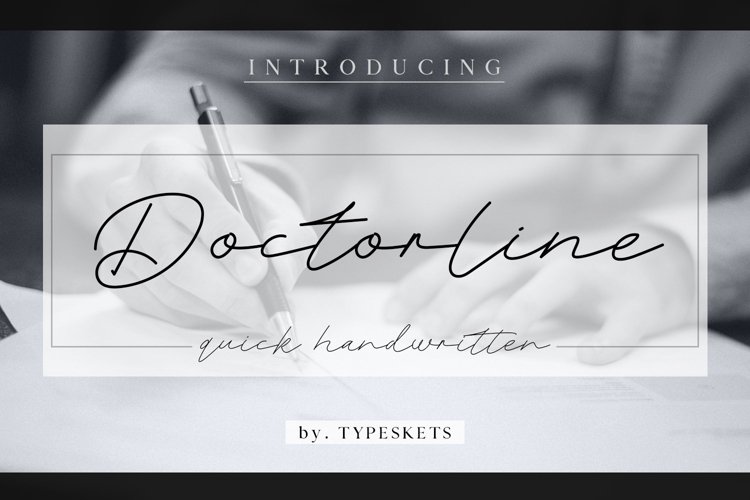
Doctorline
Doctorline simplifies elegance into one truly outstanding handwritten font. Whether you’re looking for fonts for Instagram or calligraphy scripts for DIY projects, this font will turn any creative idea into a true piece of art!
Doctorline Hairline
Doctorline Regular
Doctorline Thick Line